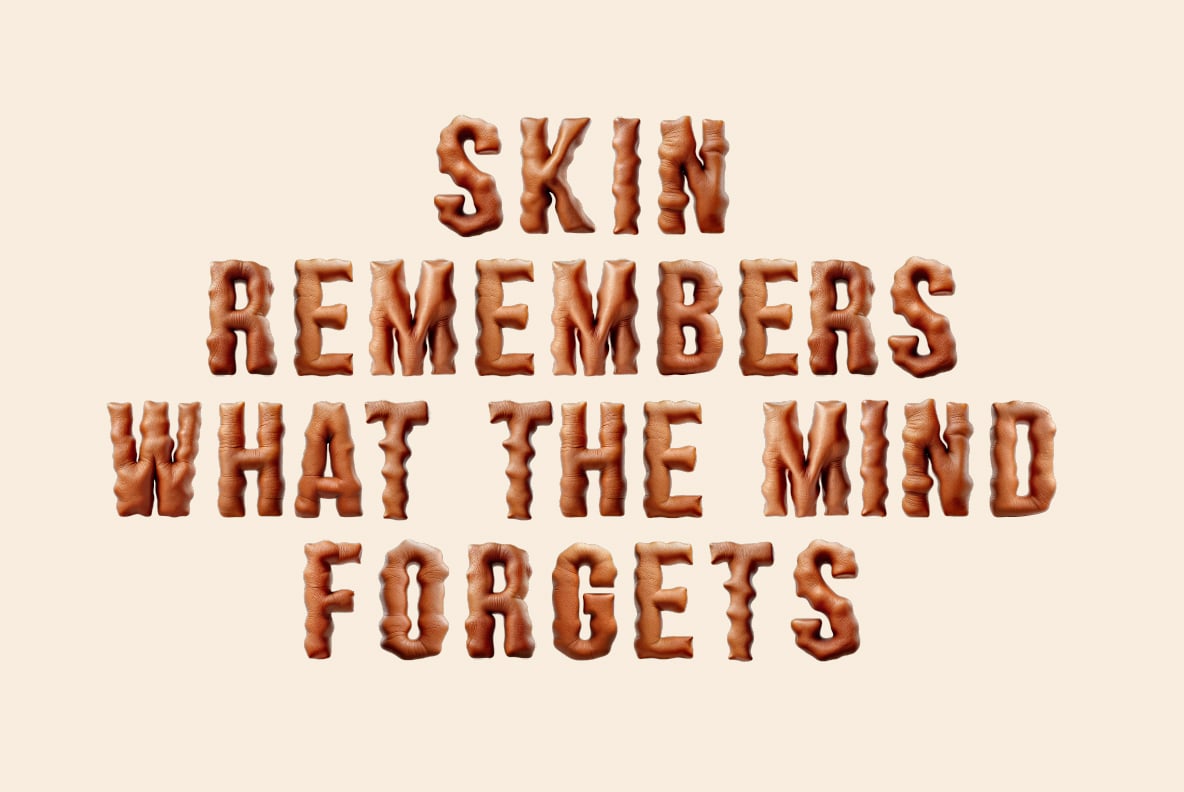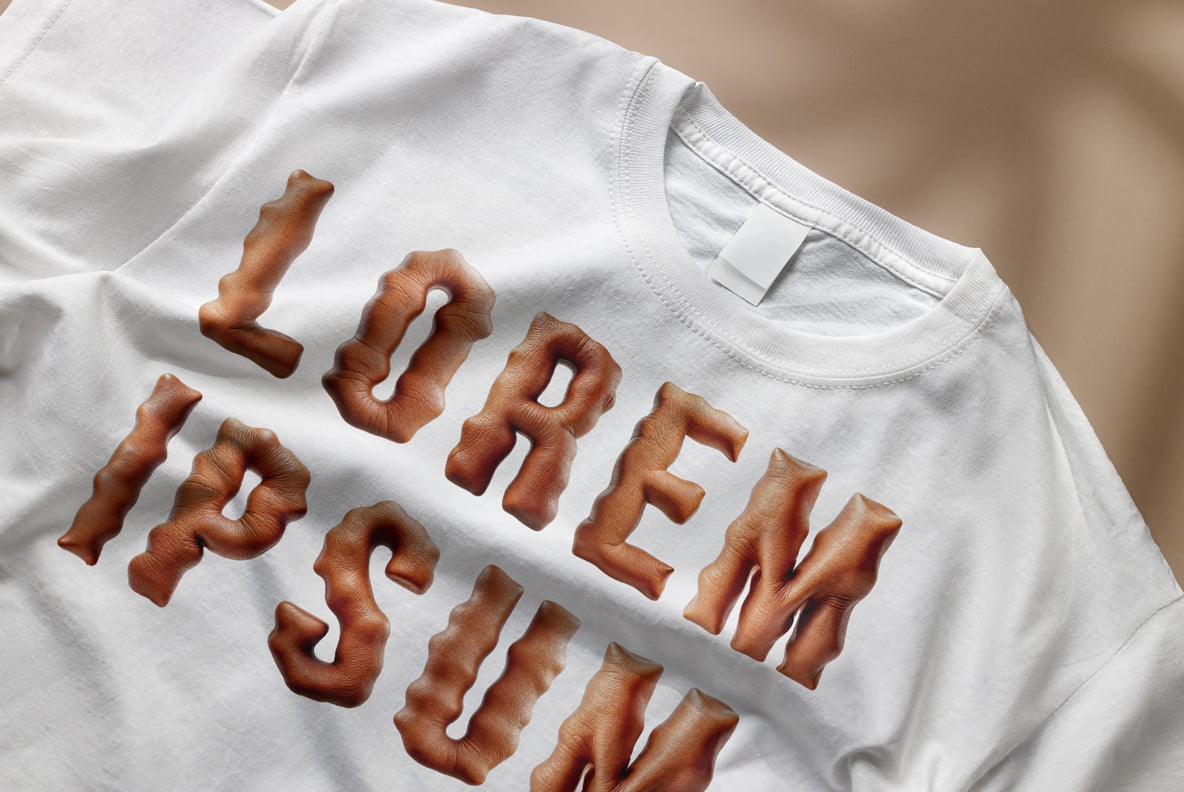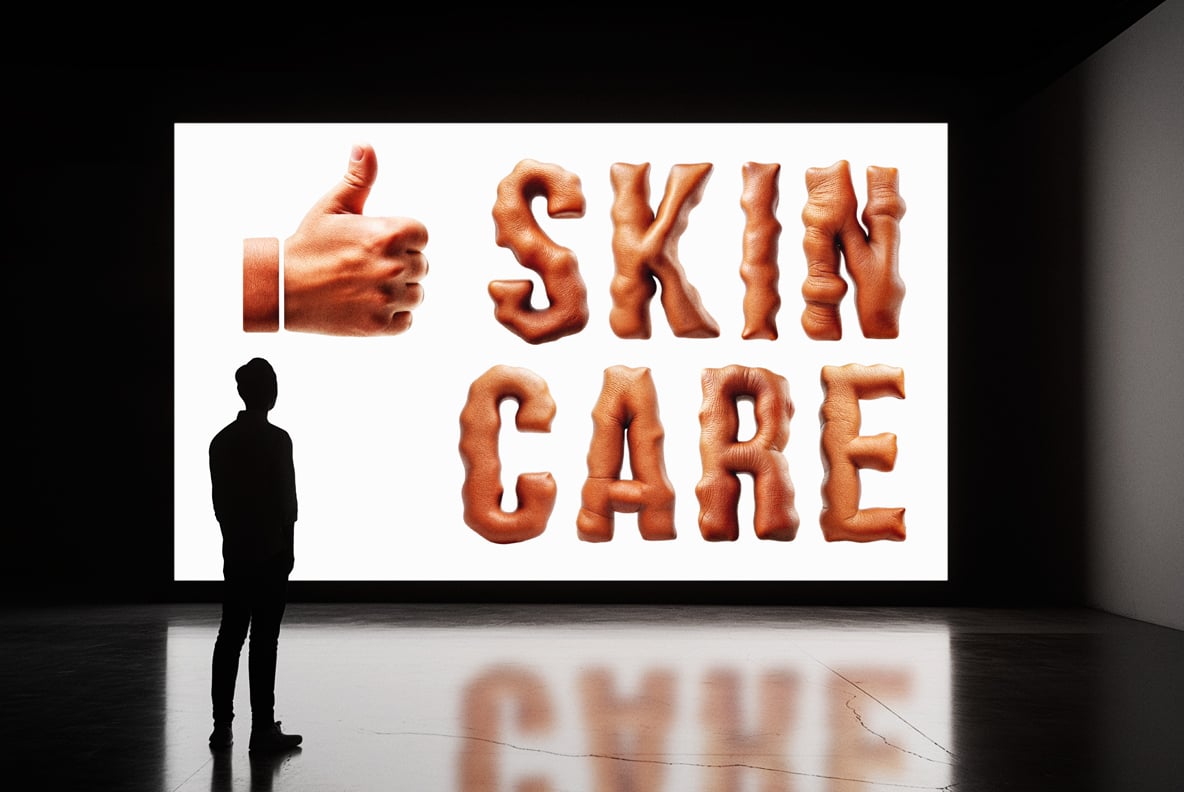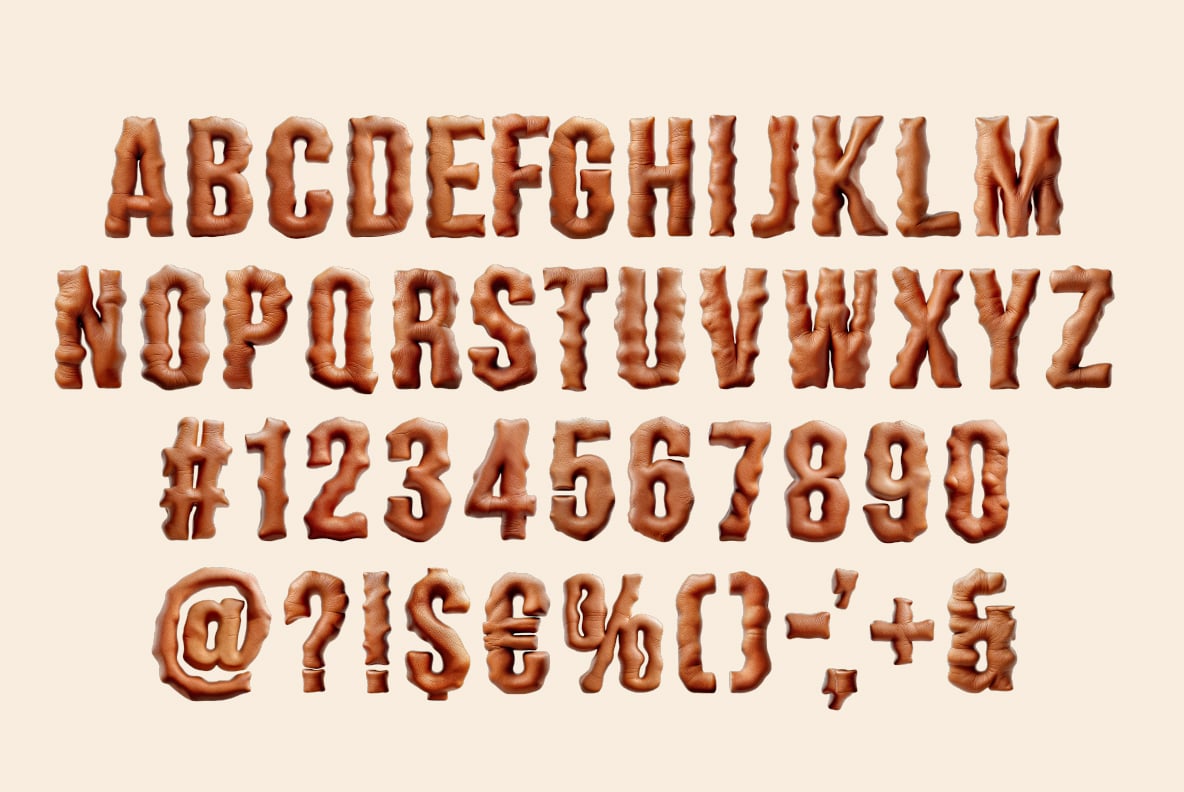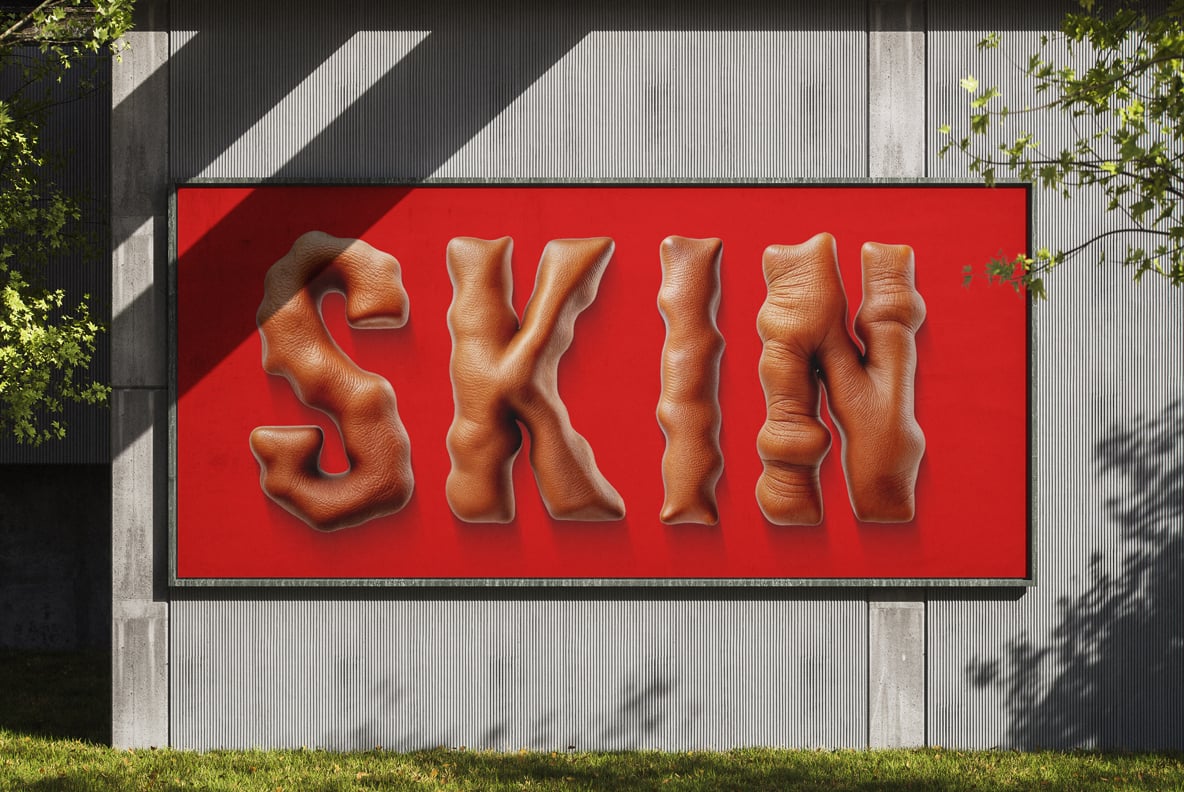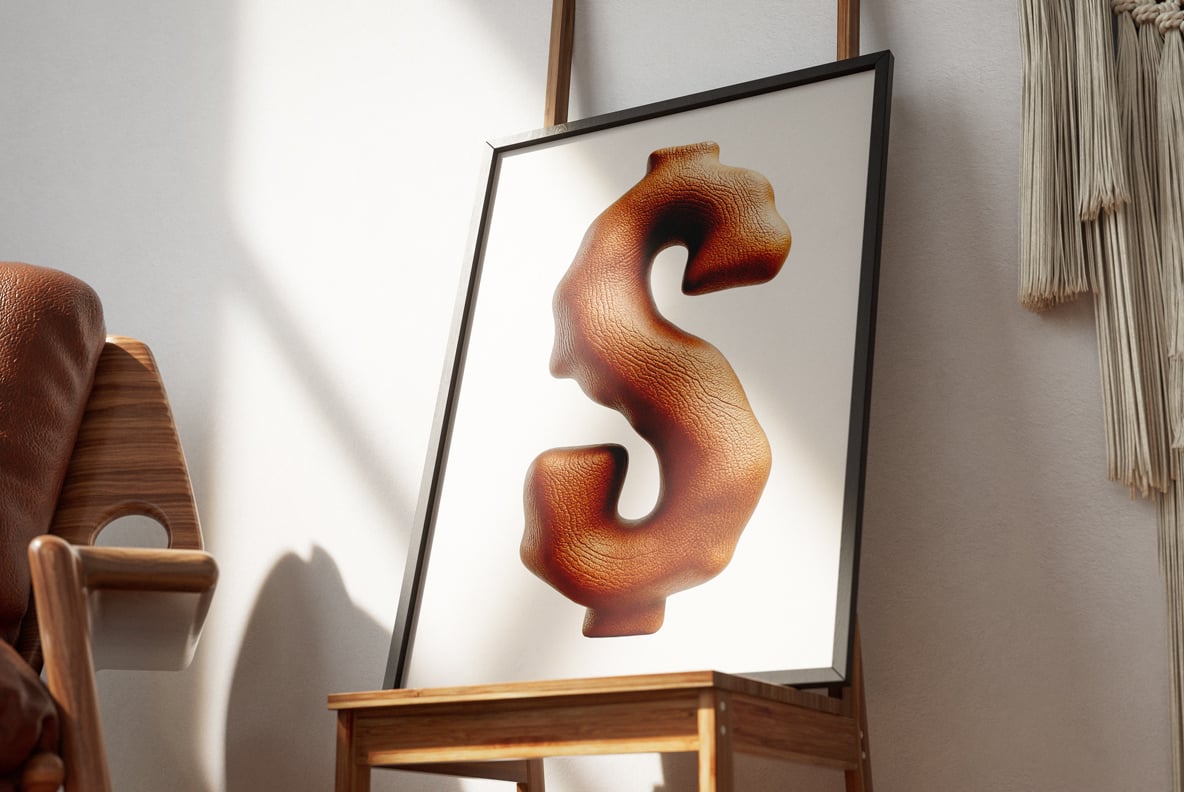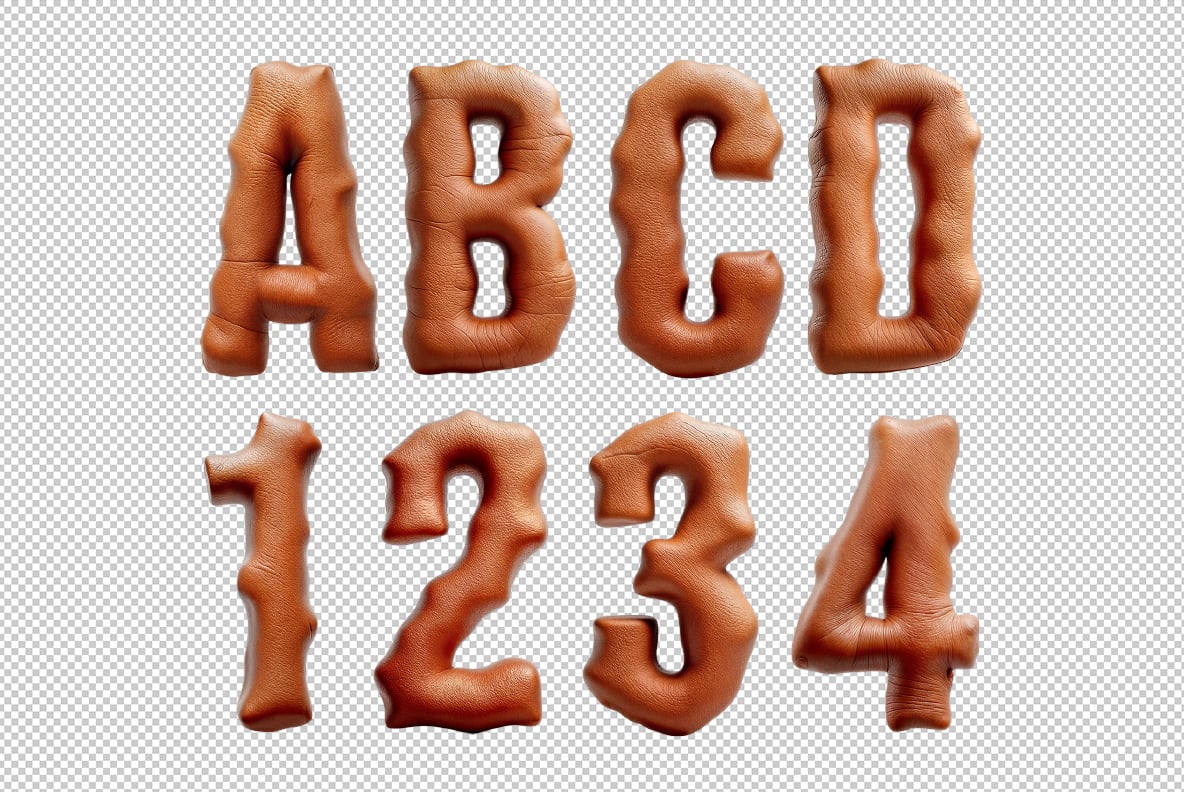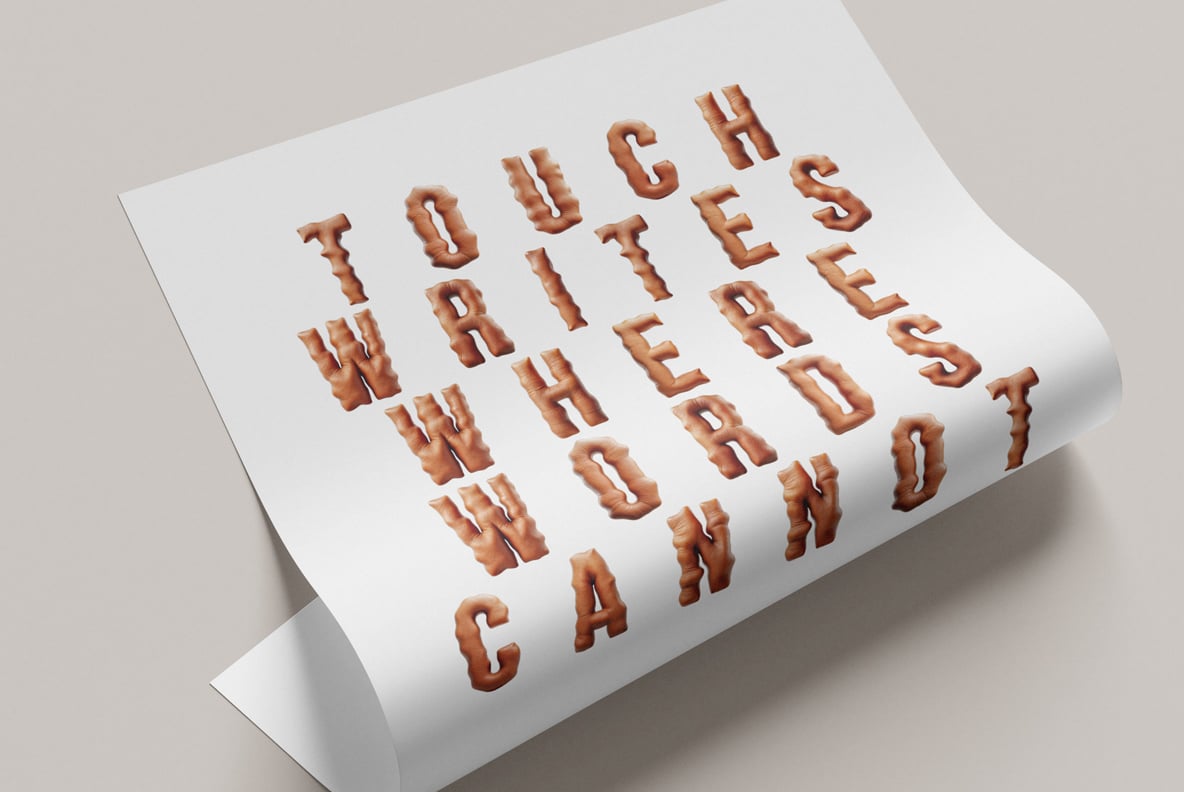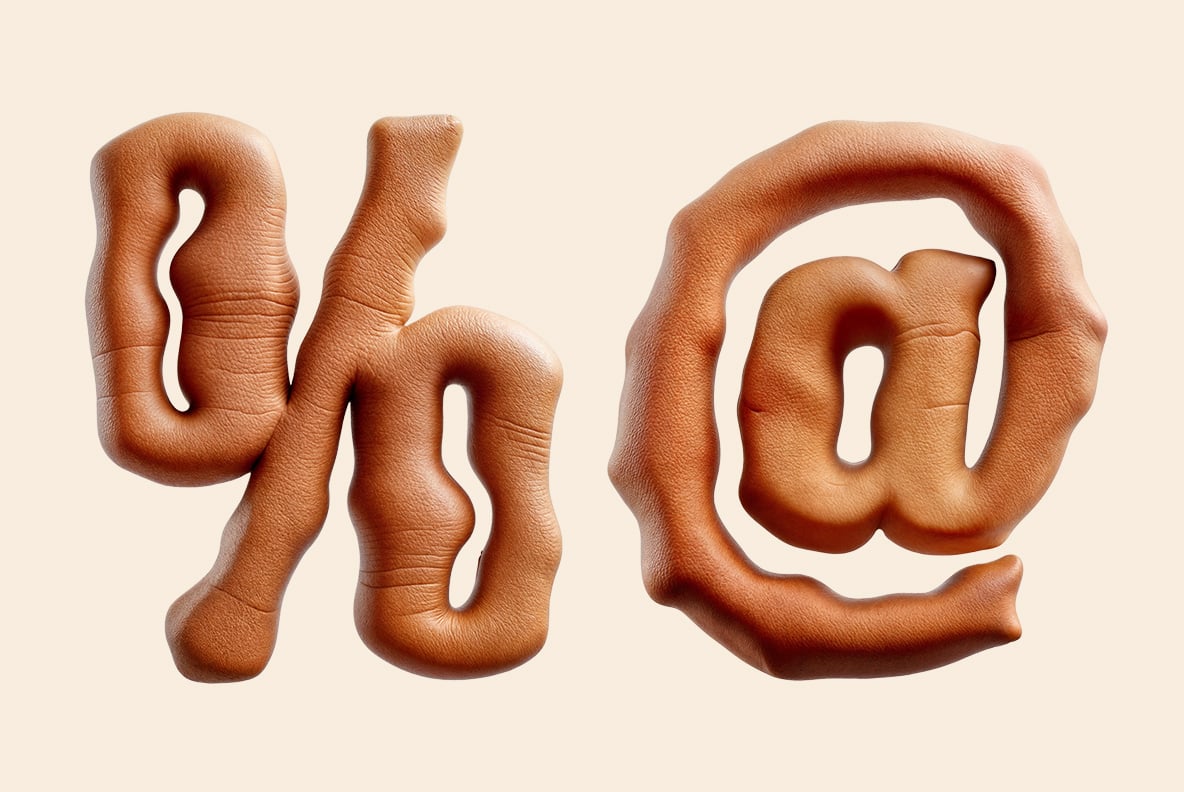
SkinCrawl Font
Meet SkinCrawl, the font that gives typography goosebumps—literally. Each letter is sculpted to look like textured, wrinkled skin, complete with natural folds and quirky imperfections that make it almost too lifelike. Whether you’re designing for a spooky campaign, a medical project, or just want to freak out your audience in style, SkinCrawl delivers that unsettling, tactile vibe you didn’t know you needed. It’s bold, bizarre, and brilliantly detailed, straddling the fine line between fascinating and eerie. Perfect for anyone brave enough to make their words crawl right off the page and under your skin!
Others : ! ? - . ' $ € % & #